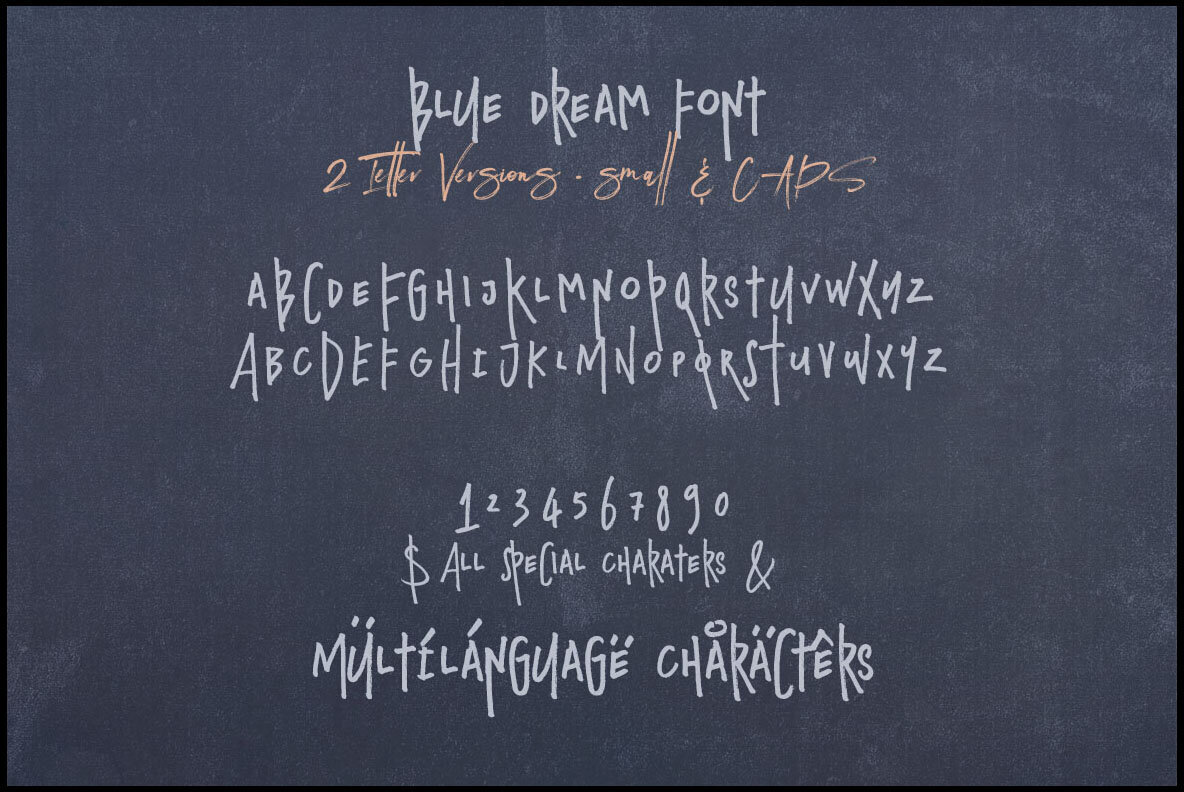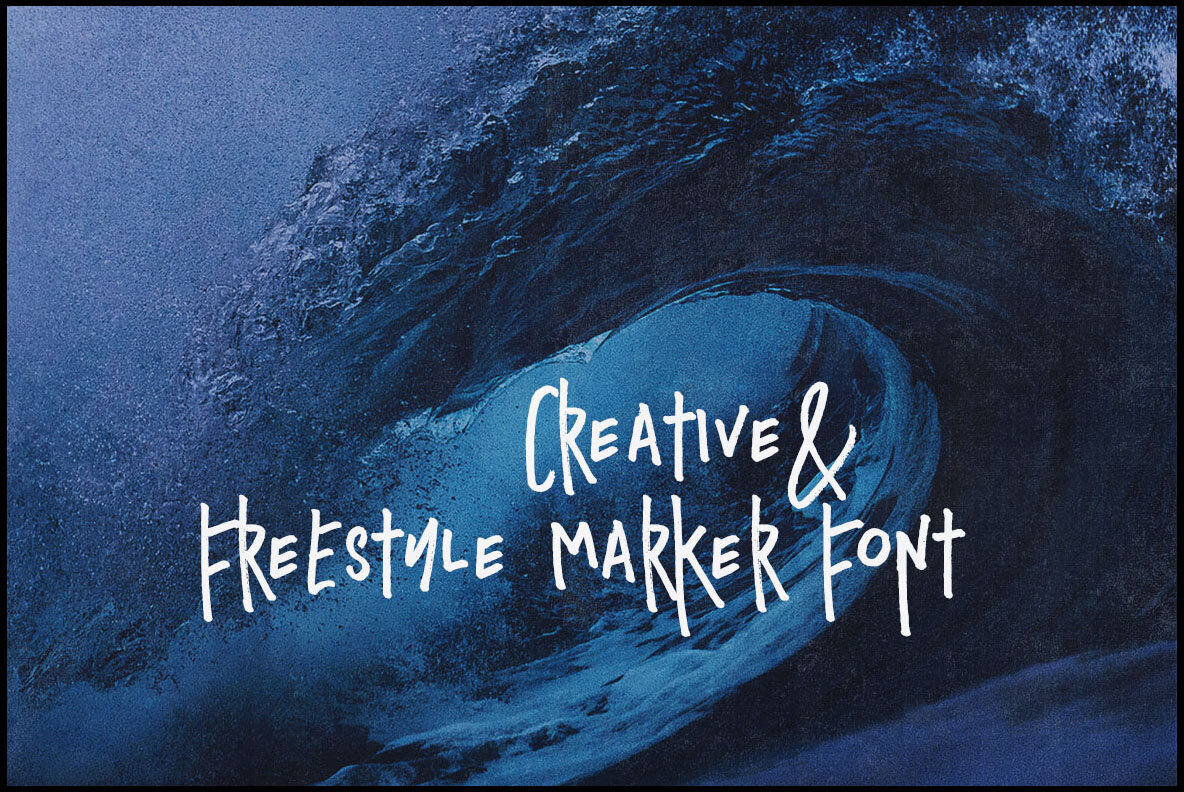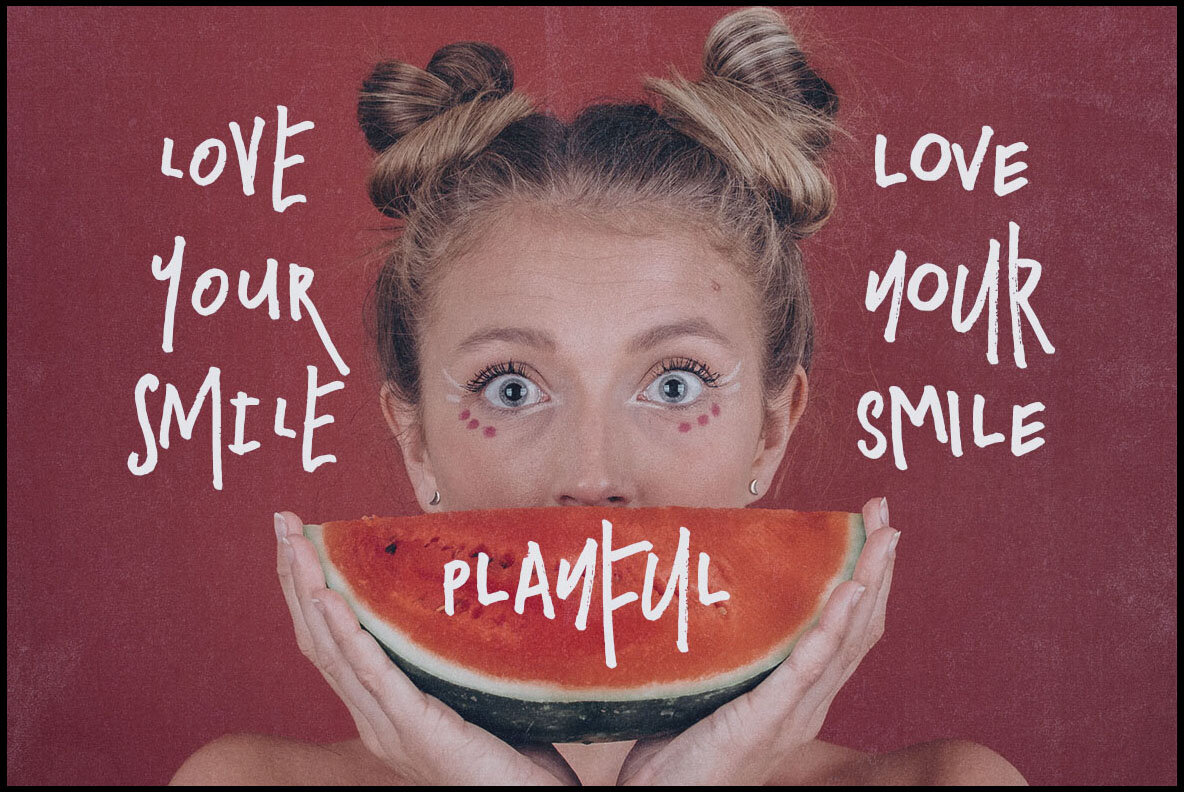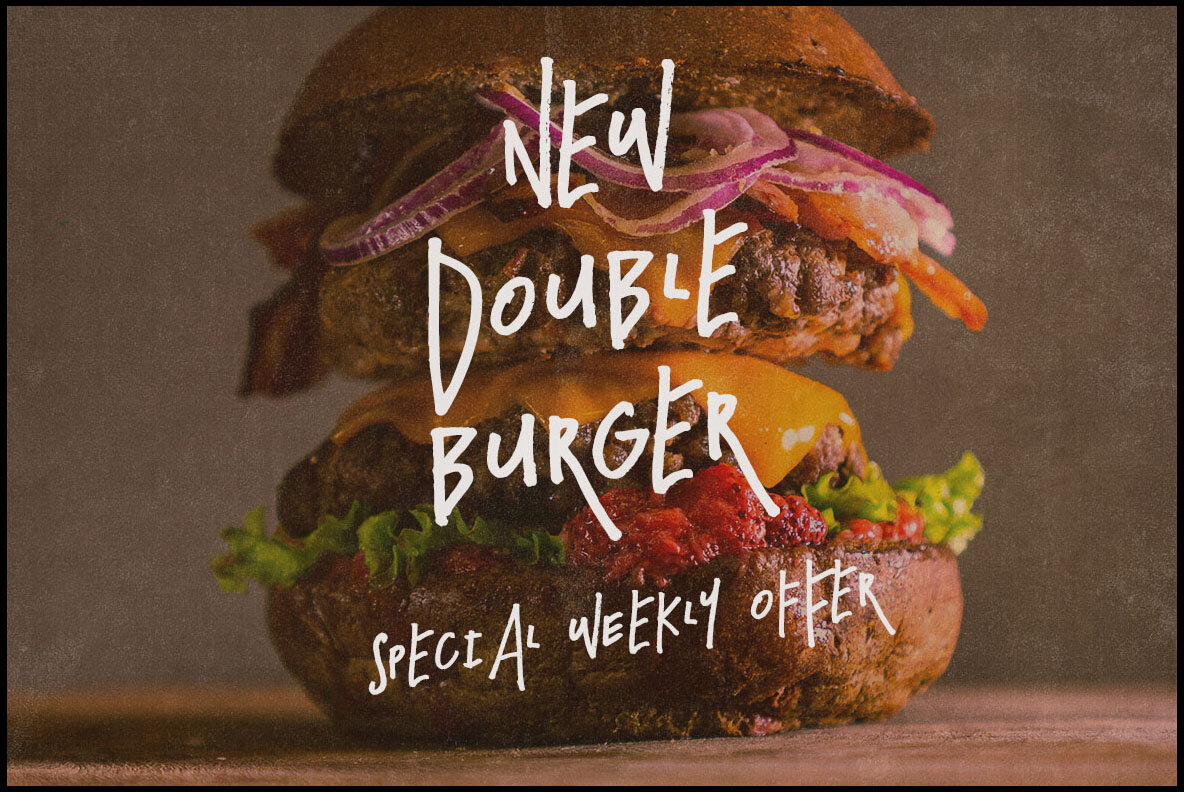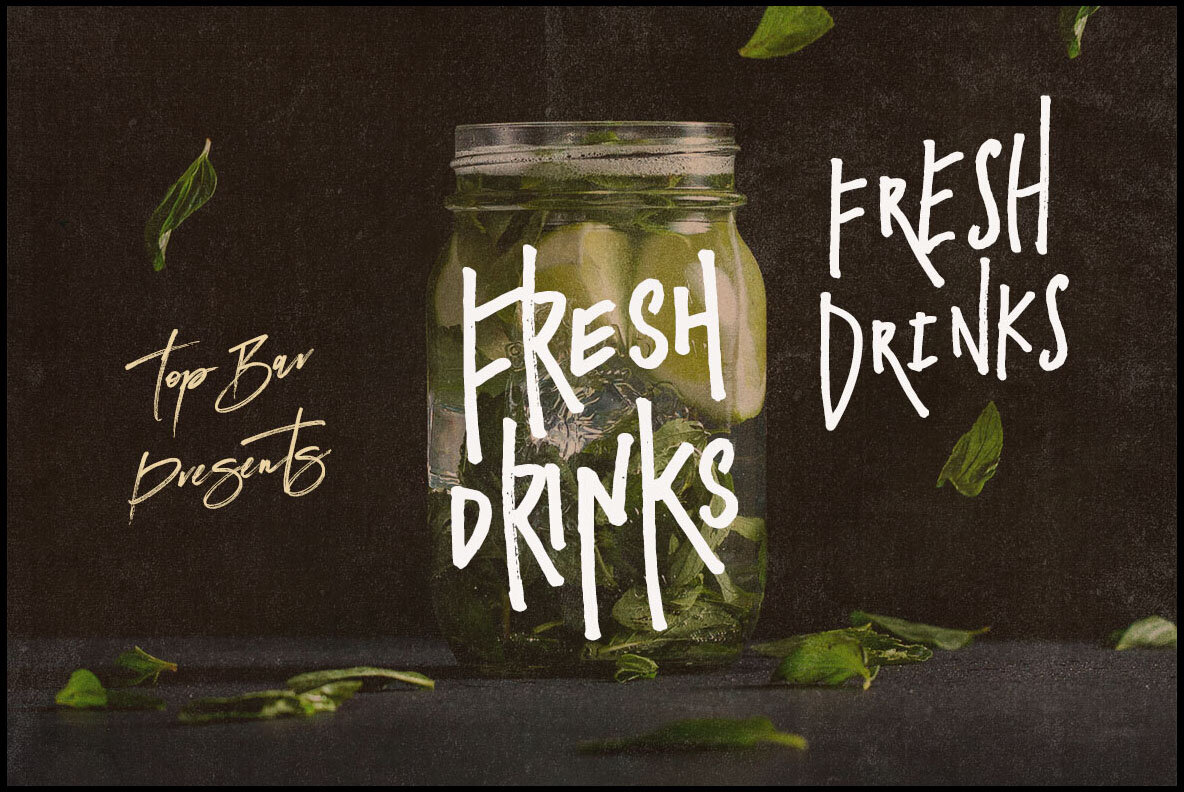
Blue Dream Font
Blue Dream Regular
Blue Dream is a bold and striking sans display font with a distinct marker, handwritten, and grunge-inspired aesthetic. This unconventional typeface is perfect for projects that require an artistic or grunge flair, effortlessly adding character and a unique touch to your designs. The font is provided in a Regular OTF format and boasts multilingual support, allowing for versatility and adaptability across a wide range of creative applications. Make a statement and leave a lasting impression with this dynamic and edgy font, ideal for injecting energy and personality into your artistic projects.